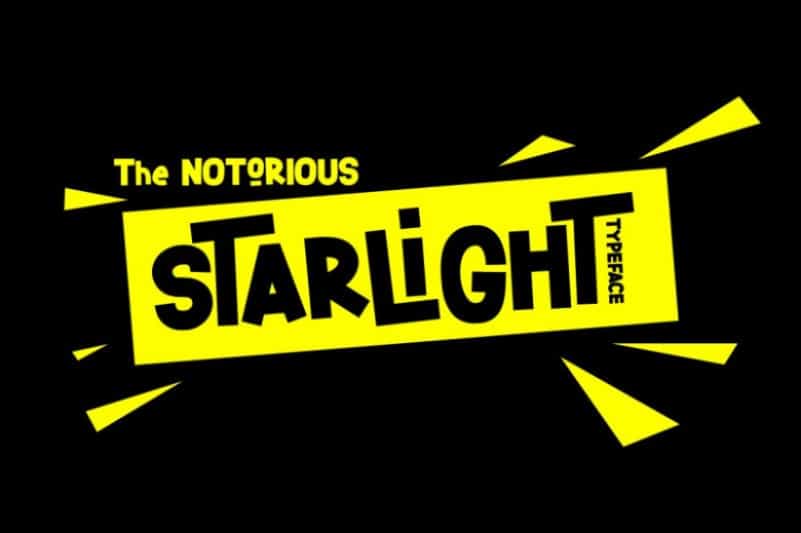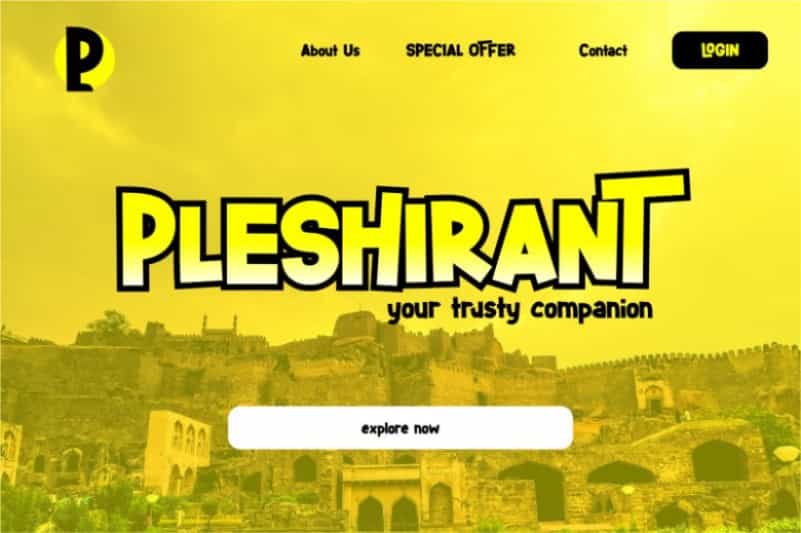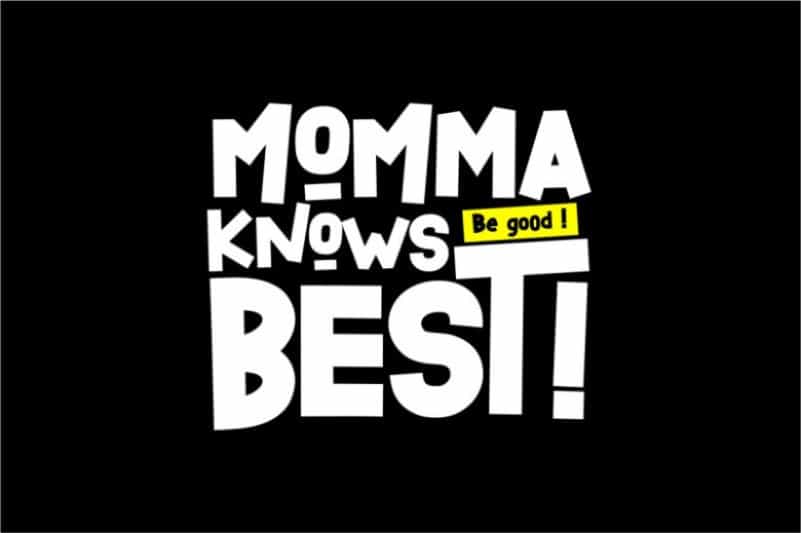
Starlight Font is a font that has the characteristics of sans serif and it also comes with additional outer space doodle vector graphics. Extremely fun and science based. Great for science or school projects, book covers, and presentation titles.